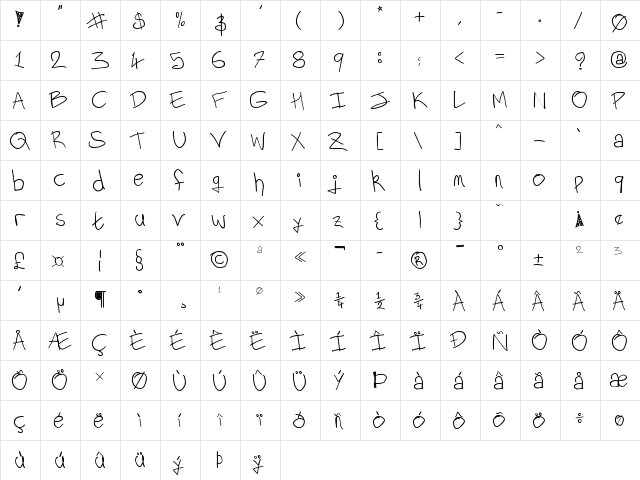
Emili's Messy Handwriting Slightly Irregular
| Designer | Emili Laralja (aka The-GirlQueen) |
Design Context for Emili's Messy Handwriting Typeface
Emili's Messy Handwriting flows with the natural rhythm of handwritten lettering, making it ideal for designs that call for warmth and personal expression. The delicate stroke weight brings airiness and refinement to layouts.
Font Pairing: Combine Emili's Messy Handwriting with a simple geometric sans for maximum contrast — the tension between flowing curves and clean structure is a classic typographic pairing.
Pro Tip: Use Emili's Messy Handwriting for short runs of text — names, titles, or taglines. Extended body copy in script faces tires the eye quickly.